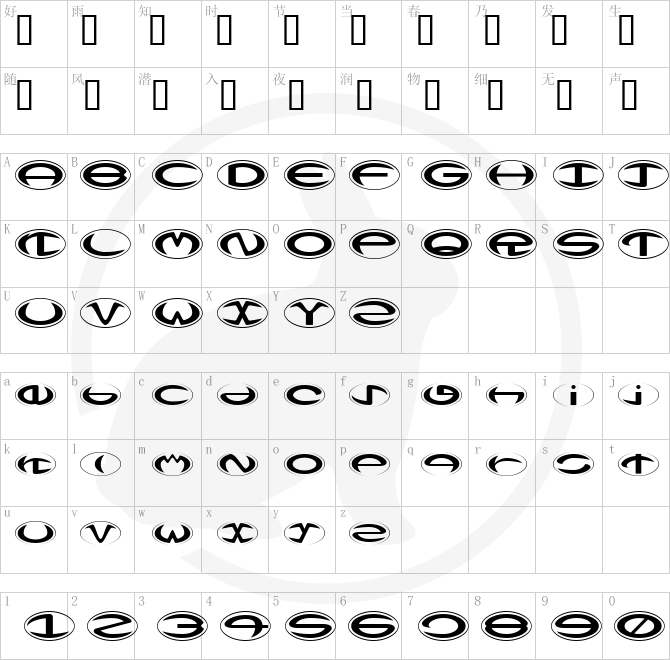
- Font Name:Dactylo
Dactylo.ttf is a very beautiful artistic font, Dactylo.ttf is widely used in the design and printing of various books and pictures,Dactylo.ttf has a strong visual impact,Dactylo.ttf is a commonly used font in newspapers, magazines and books, and is used in posters, e-commerce Poster design, store design, logo design, font design and other fields.Dactylo.